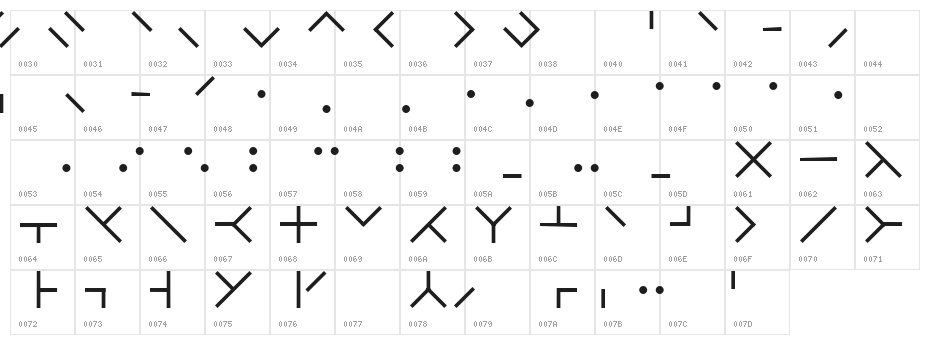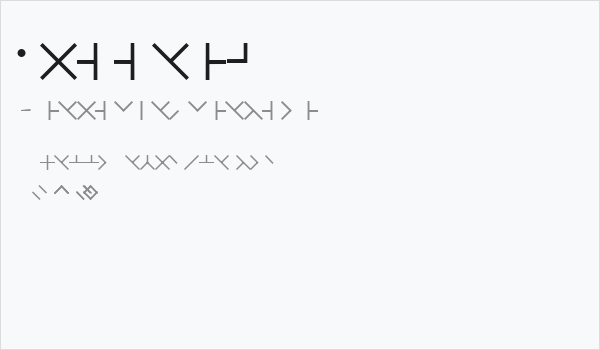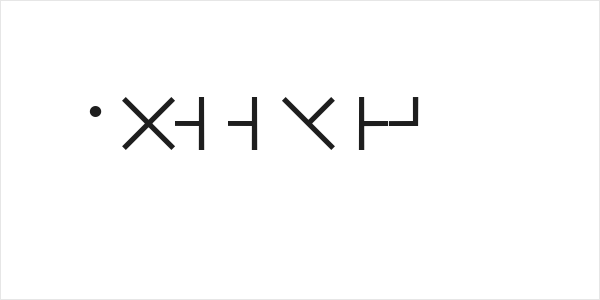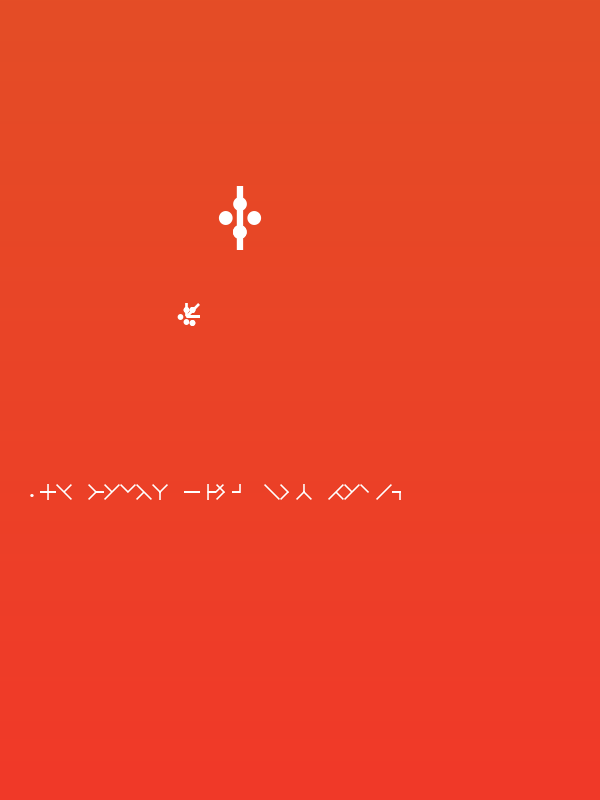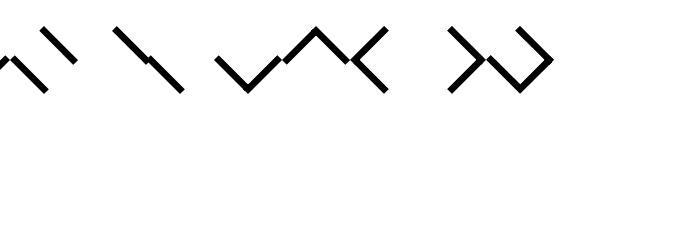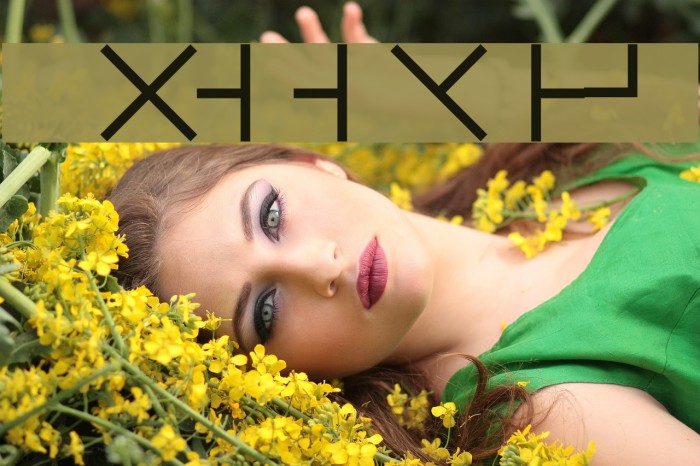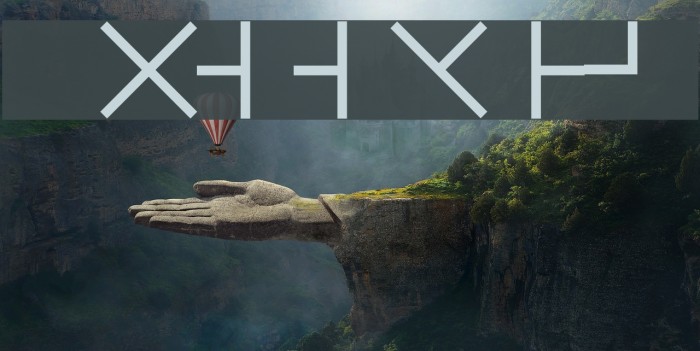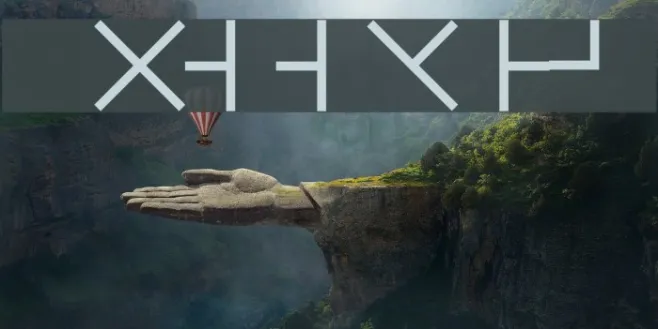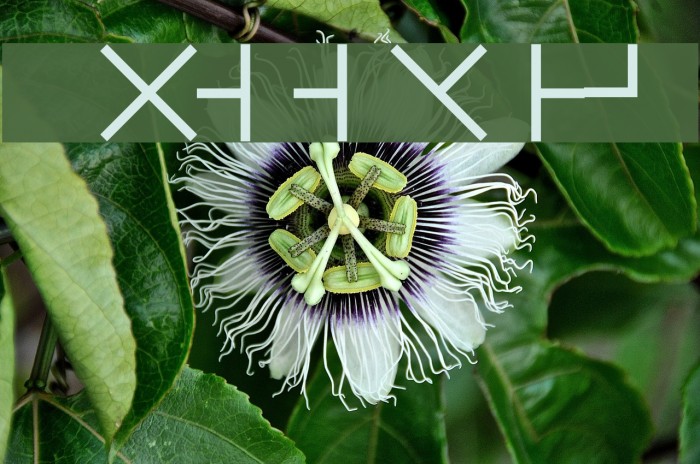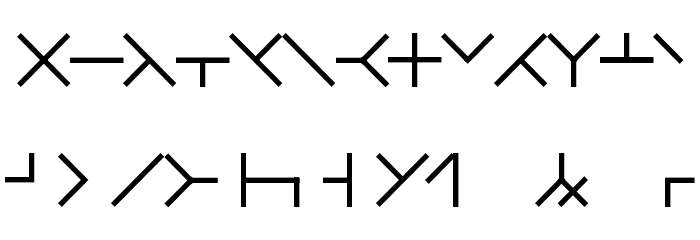
Pattern Font
Pattern Description
A geometric, abstract font composed of straight lines, angles, and dots, creating a coded or symbolic appearance. The characters are constructed with minimal curves, focusing on linear elements and intersections, giving a futuristic and cryptic feel.
| Overall Style | Futuristic, Cryptic, Experimental |
| Use Case | Logos, Posters, Titles, Themed graphics |
| Proposed Projects | Puzzle games, sci-fi branding, cryptography-themed posters, escape room signage, experimental art projects. |